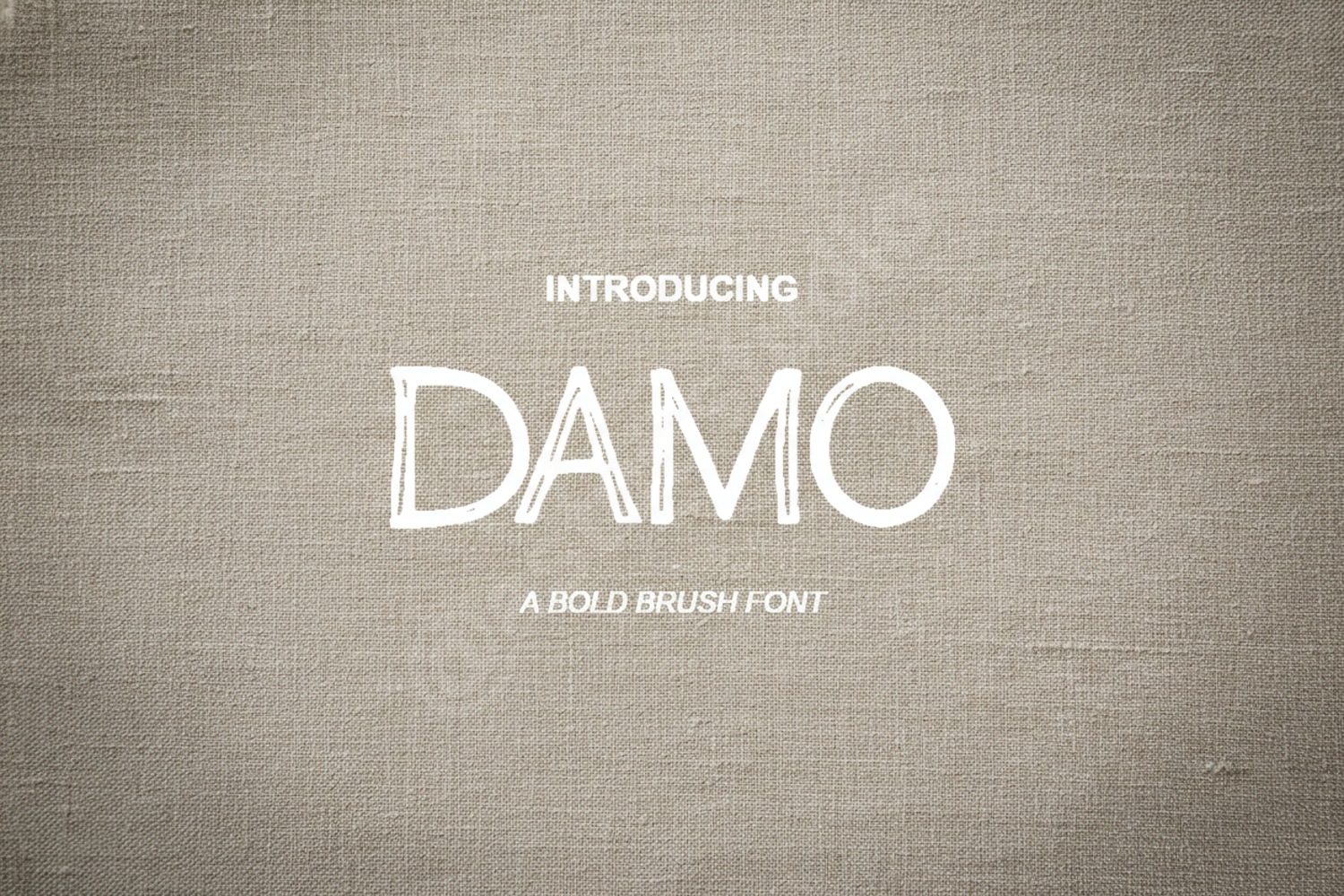
Damo - Modern Geometric Sans Serif
Damo
Elevate your creative projects with Damo, a premium geometric sans serif font that seamlessly blends modern minimalism with professional sophistication. Meticulously crafted for clarity and impact, Damo features balanced proportions and clean lines that ensure your message stands out. This versatile typeface is designed to meet the demands of high-end design, offering a timeless aesthetic that adapts to various creative directions.
- Branding and Identity: Craft distinctive logos and professional corporate identities.
- Editorial Design: Perfect for magazine headers, body text, and stylish layouts.
- Web and App Design: Enhance user interfaces with a clean, readable aesthetic.
- Social Media: Create eye-catching graphics for Instagram, Pinterest, and LinkedIn.
- Product Packaging: Add a premium touch to labels, boxes, and promotional materials.
- Advertising: Deliver clear and compelling messages across print and digital media.